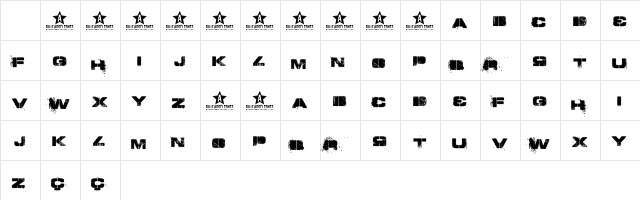
TOY_SOLDIERS has the no-nonsense character of military stencilling and tactical signage, projecting authority and directness. Its bold stroke weight gives it real presence on the page.
A strong choice for security brands, outdoor gear, and high-stakes visual communication.
Pro Tip: Try TOY_SOLDIERS in all-caps for the most authentic military signage feel. It pairs well with stark, minimal layouts and muted colour palettes.